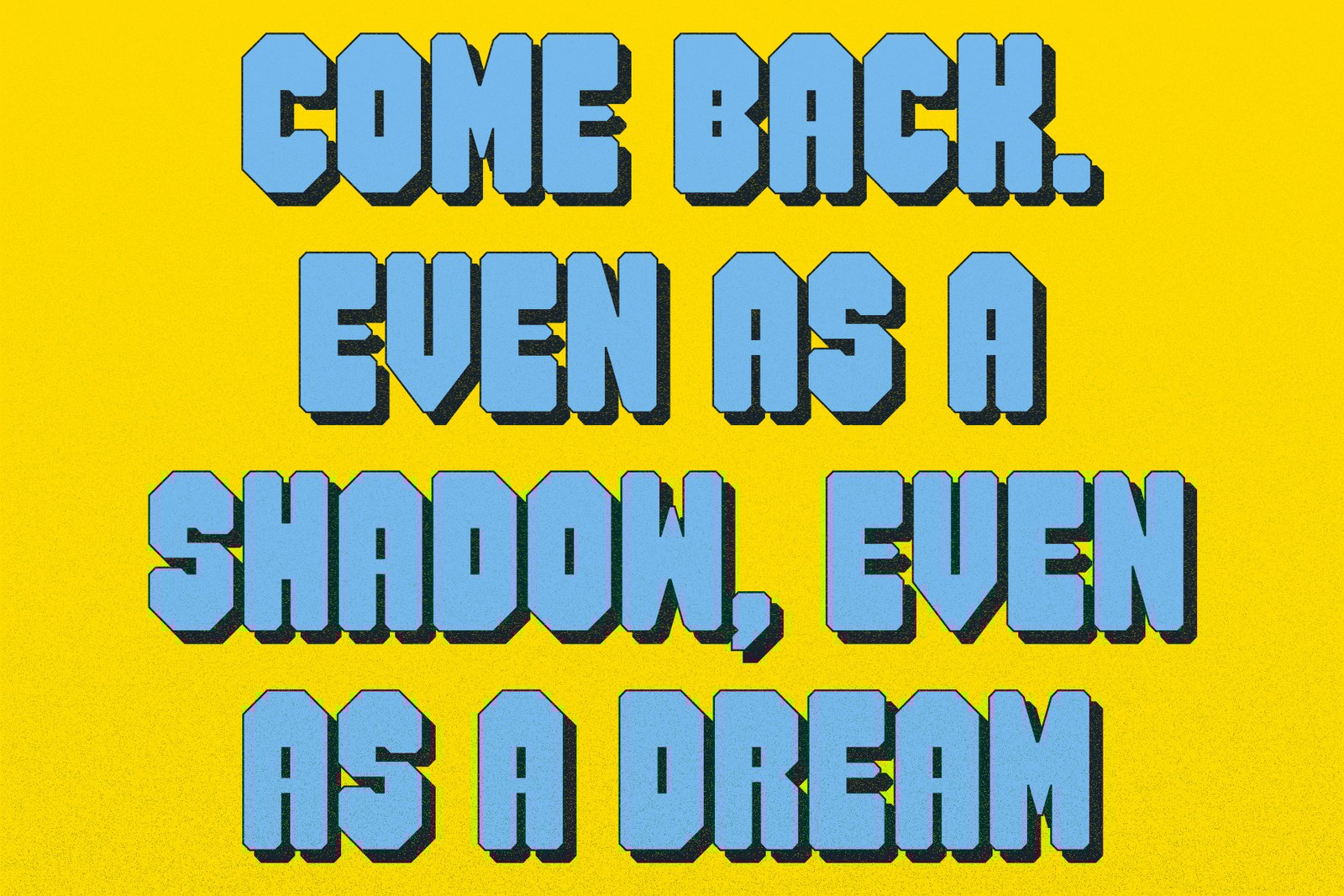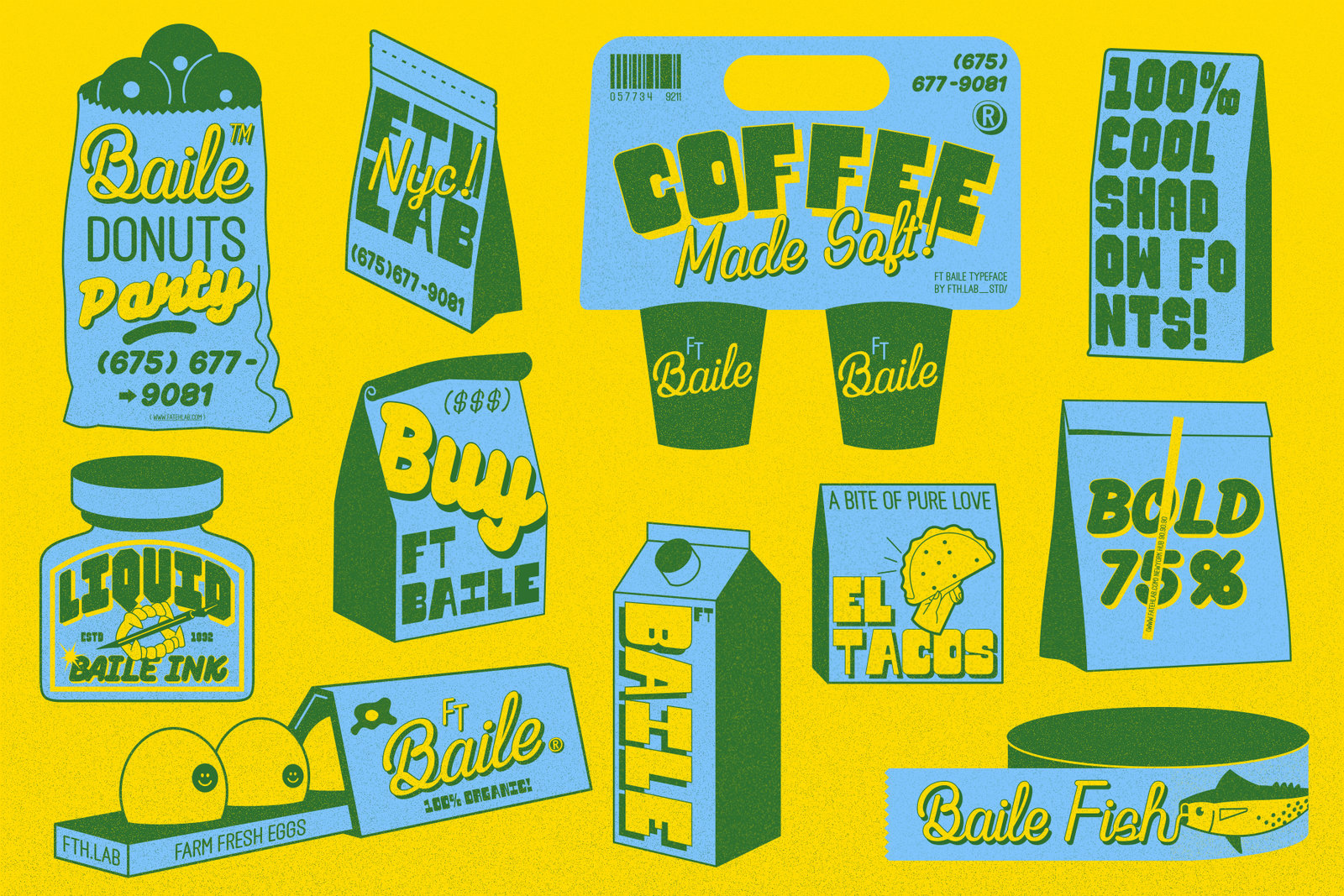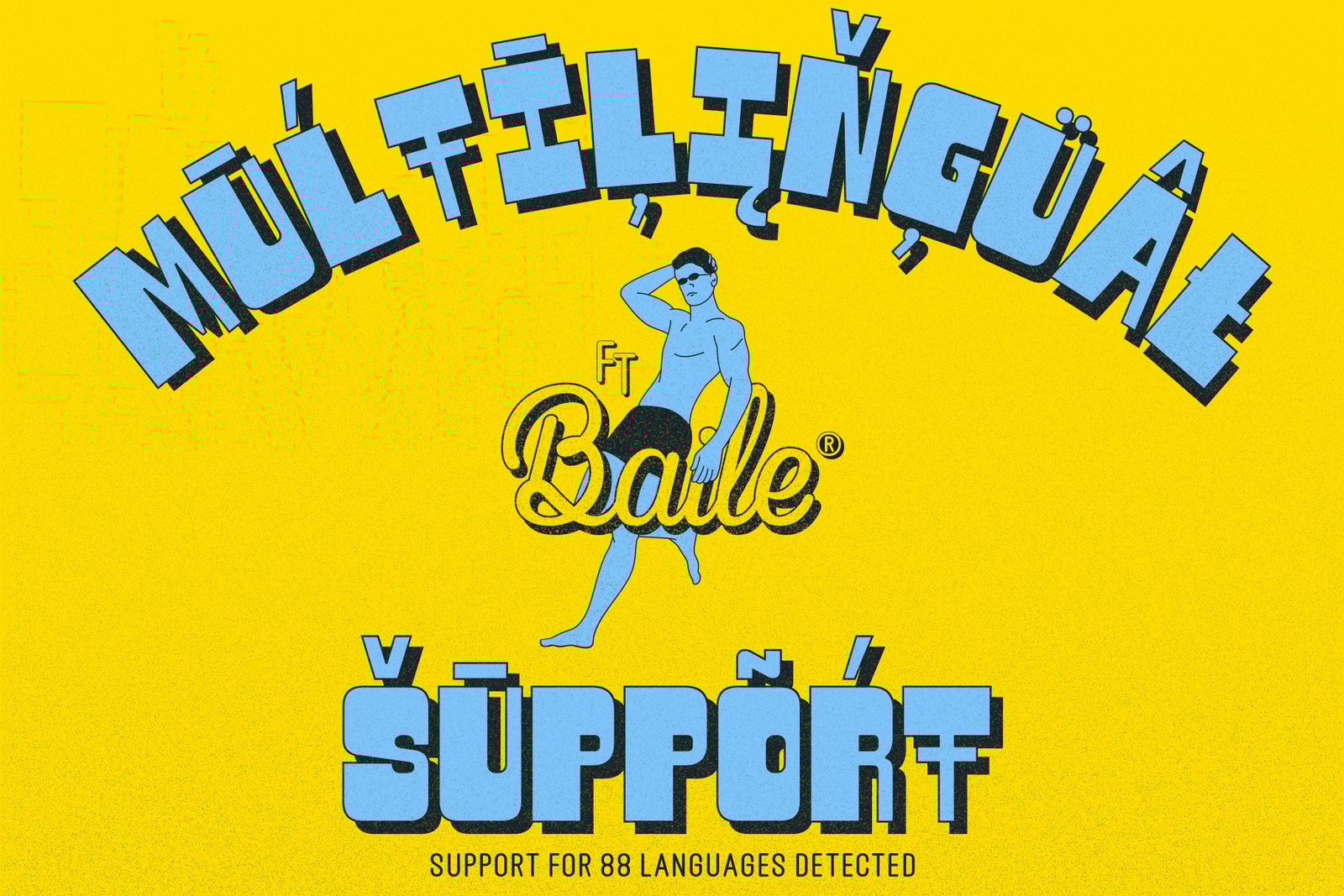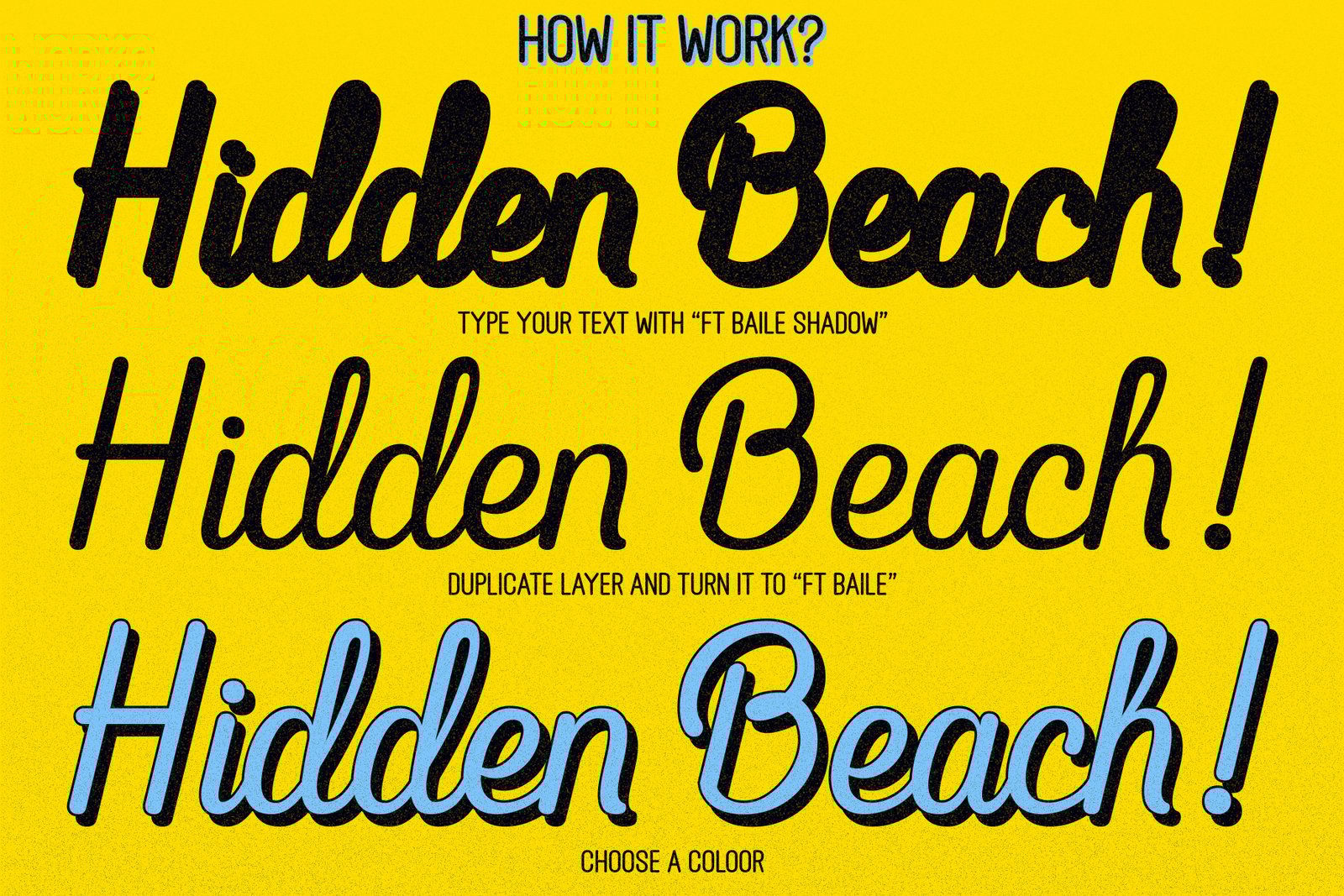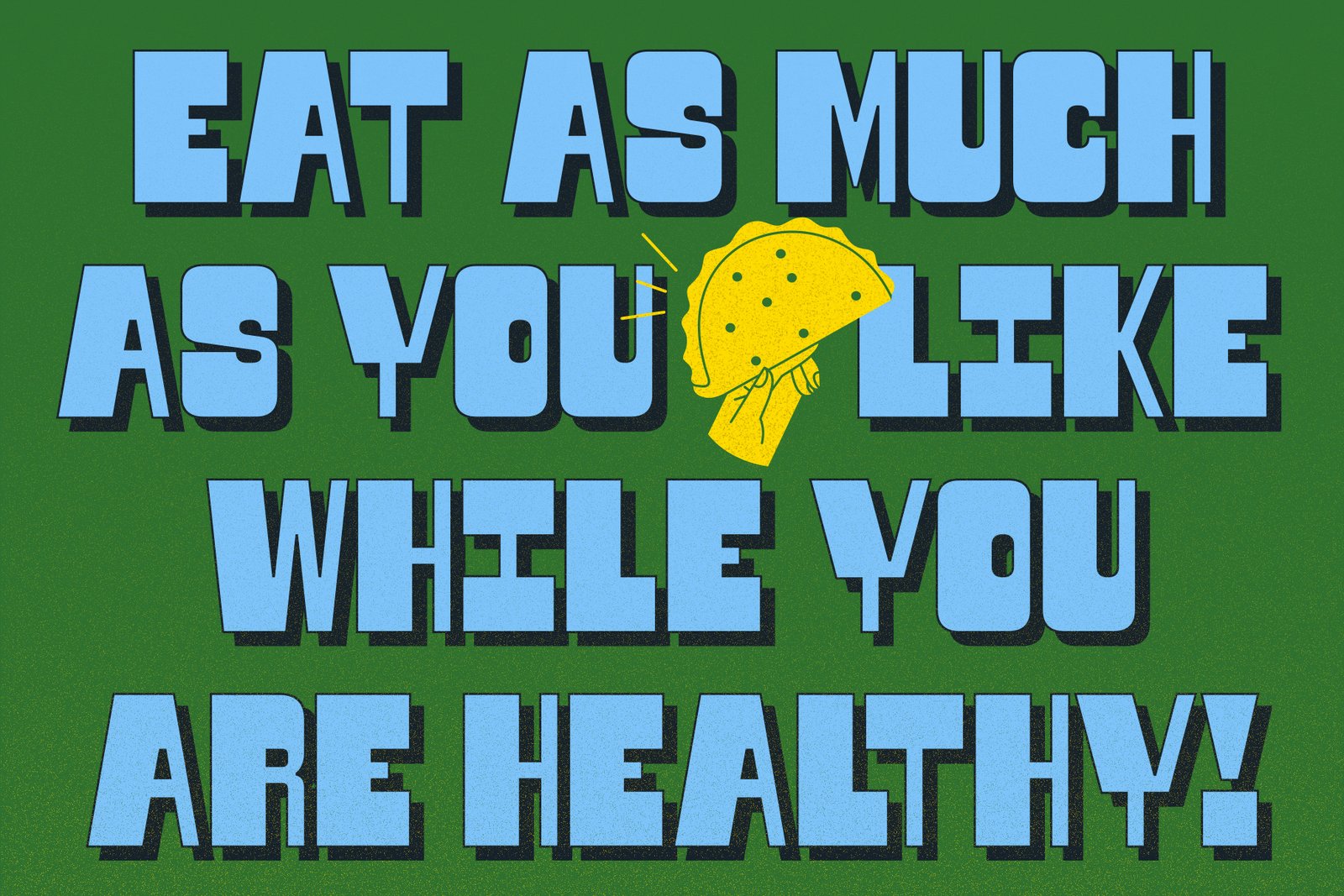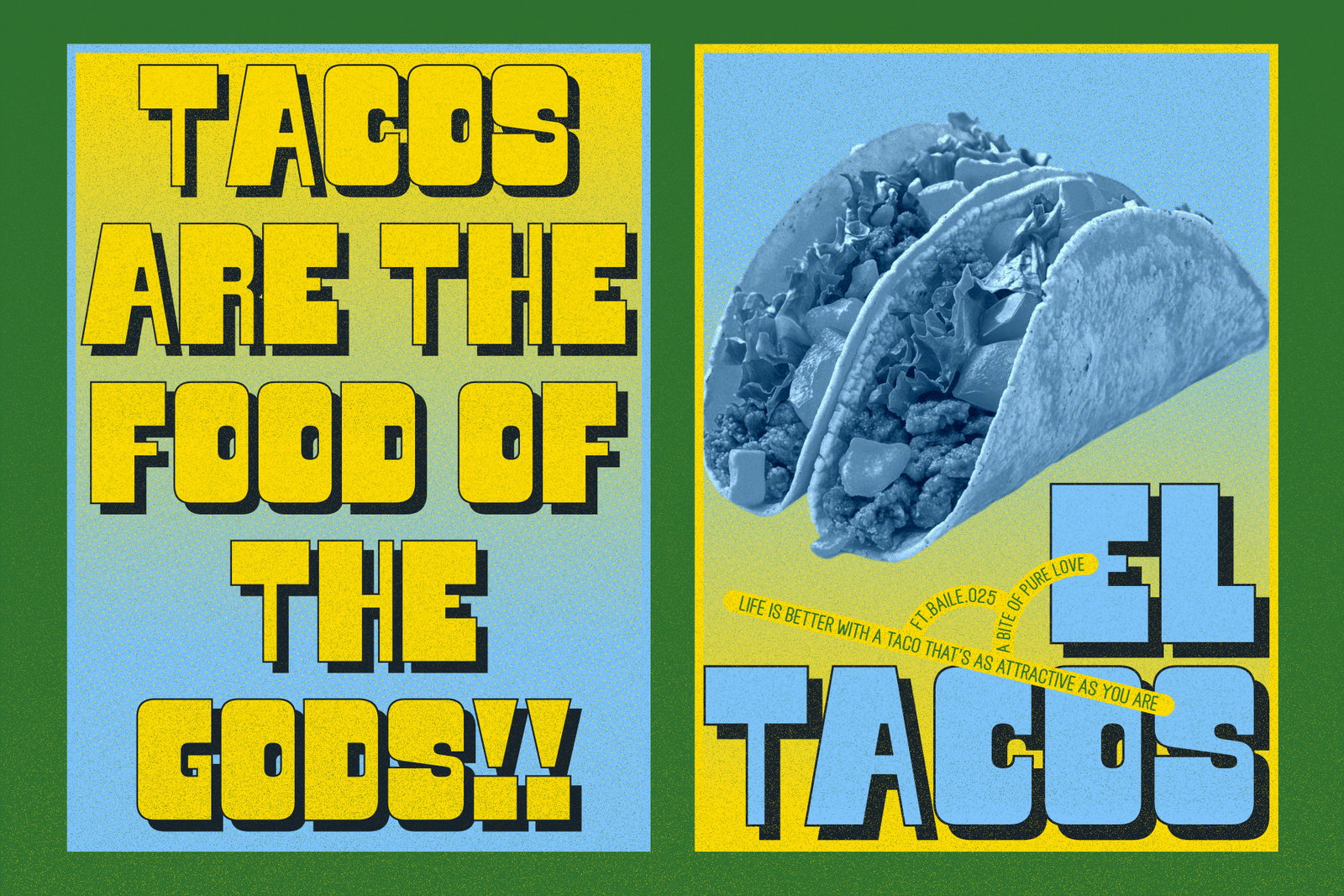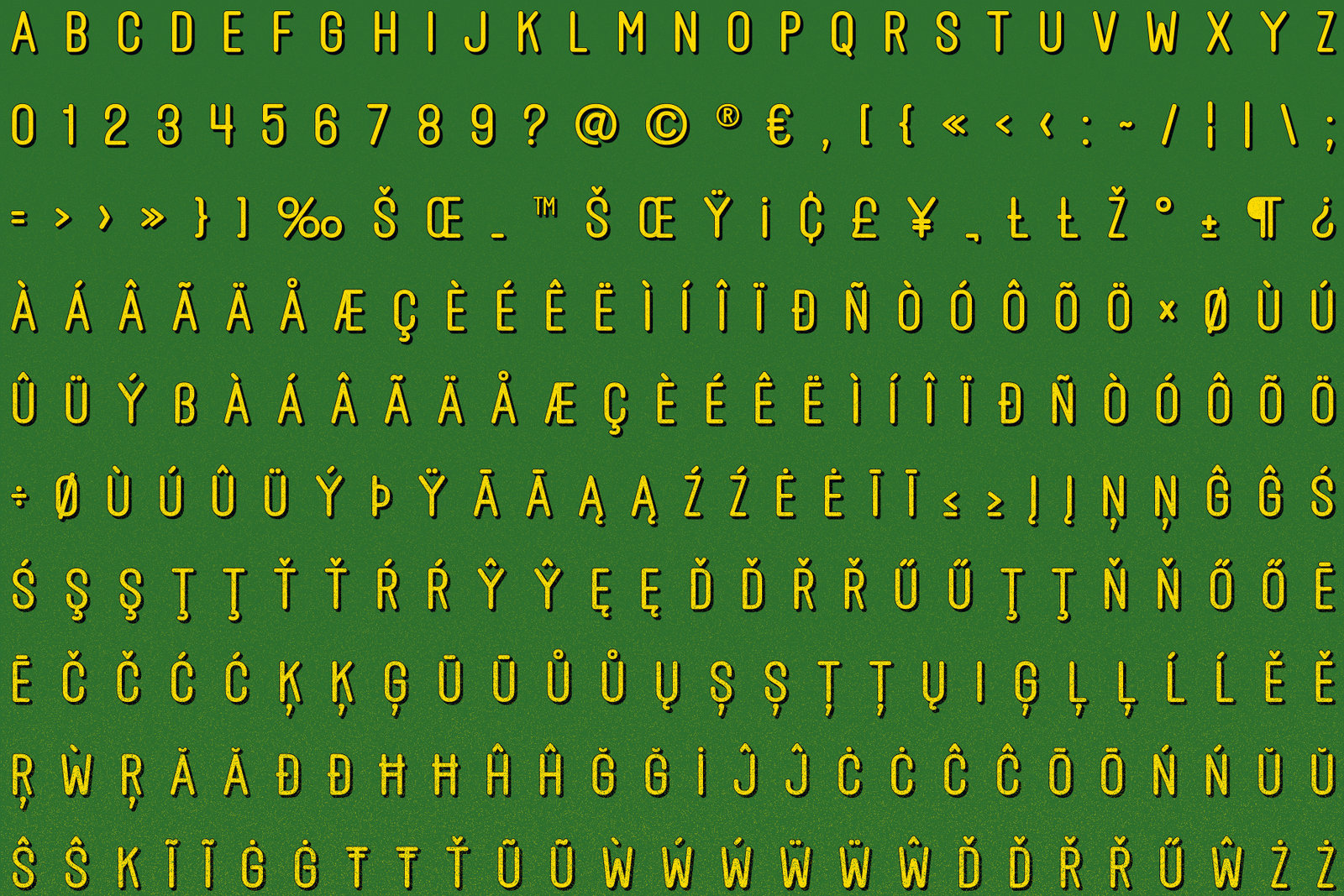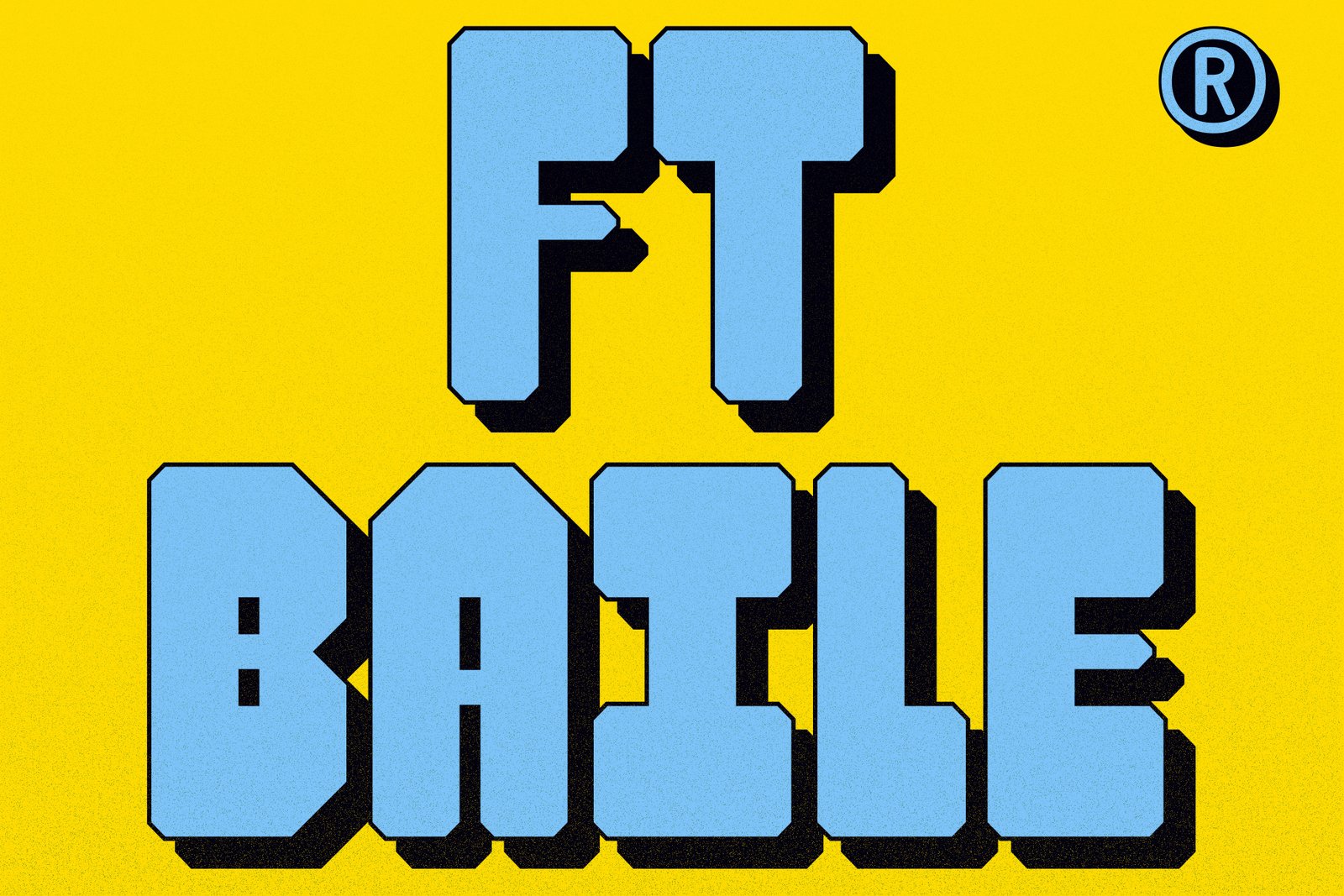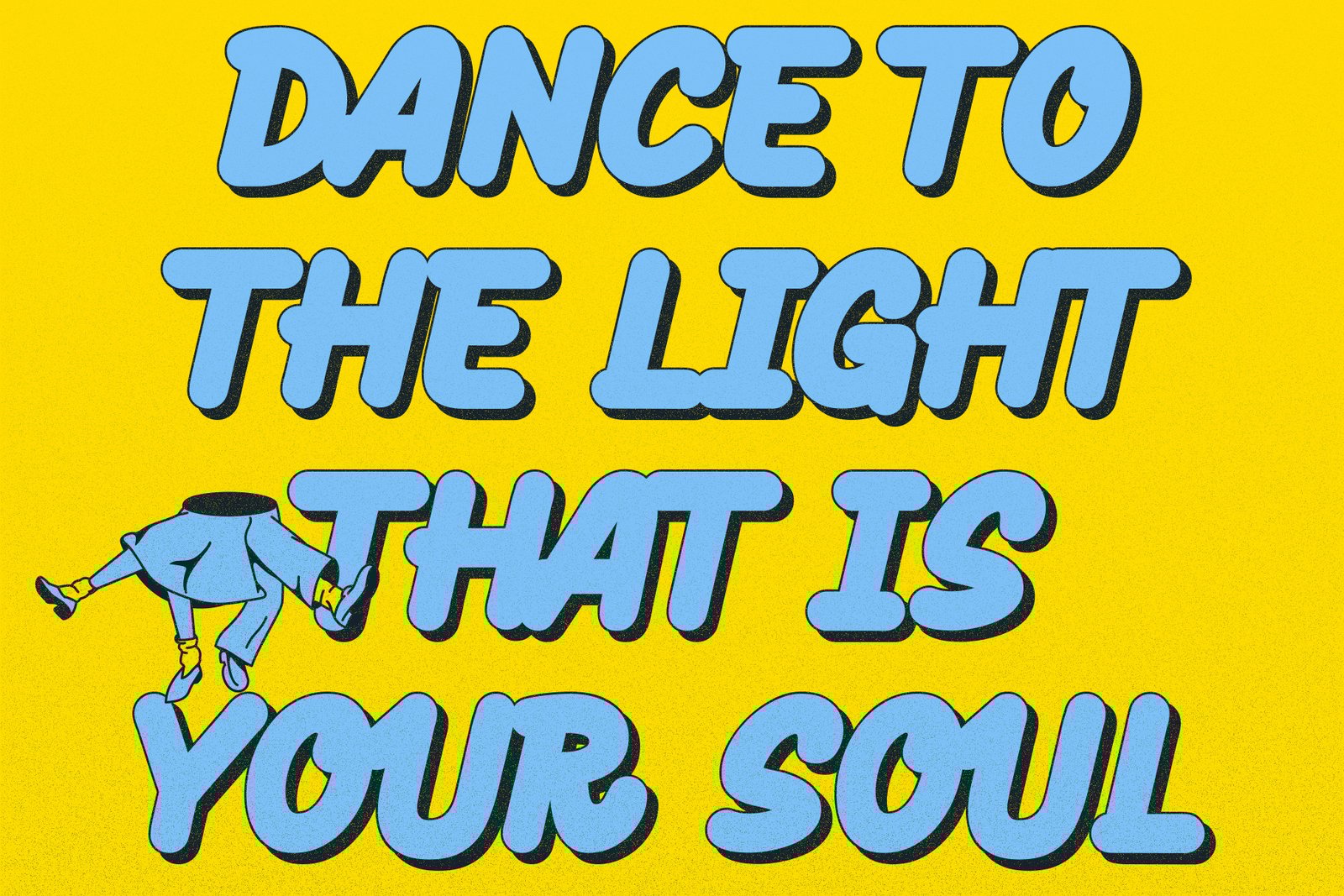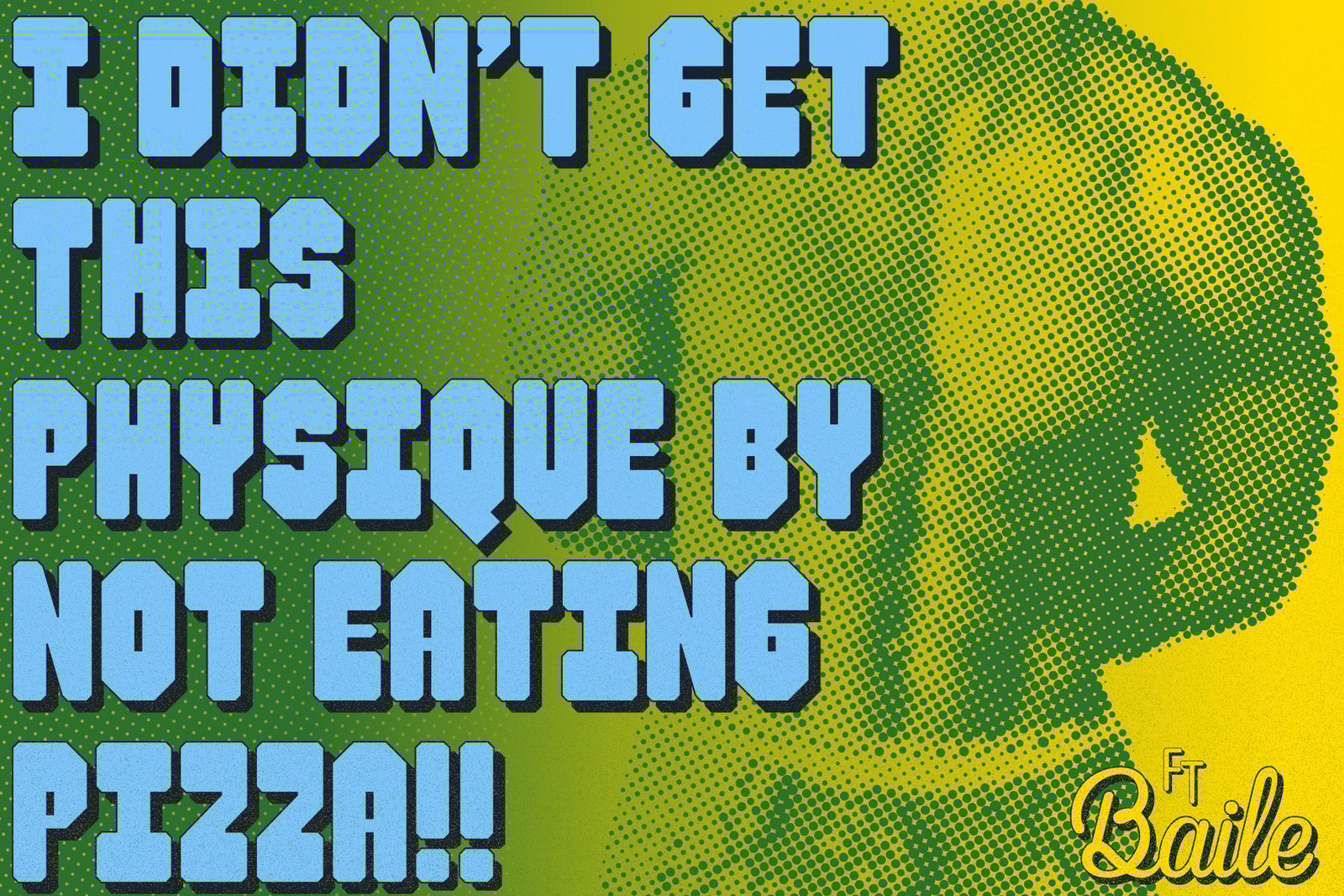
FT BAILE SHADOW FONT
Ft. Baile is the latest work of art from Fateh Lab! And yes! This shadow font is perfectly crafted, meticulously crafted, making it a truly unique work of art that stands out from the crowd. This font marks the beginning of a shift in current design trends.
With its soft yet bold typographic style, Ft. Baile embodies all the elements of life in today's design world. It's the perfect answer for those of you who are creating something great.
This font is supported by 5 font styles with a precise level of detail! This is a masterpiece you must own immediately!
This font has a superior boldness for posters, social media, headlines, magazine headlines, packaging, and large print formats—and anywhere you want to see it.